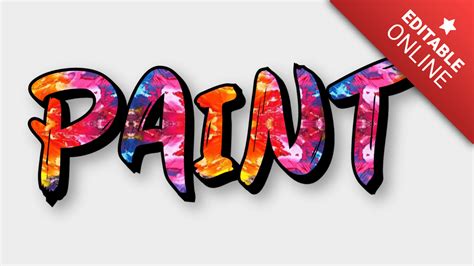
Paint Font Generator. Web discover the perfect font for your next project with our collection of ‘free paint fonts’. Web transform your text into a vibrant masterpiece with our innovative font style text effect generator.
Web brush fonts are imitating styles written with an ink brush, creating thick, bold and elegant text designs. Web paint brush logo creator | free online design tool. Paint fonts mimic the style of using liquid paint or sprayed paint. Use the text generator to. Web transform your text into a vibrant masterpiece with our innovative font style text effect generator. Web discover the perfect font for your next project with our collection of ‘free paint fonts’.
Web paint brush logo creator | free online design tool. Web transform your text into a vibrant masterpiece with our innovative font style text effect generator. Web brush fonts are imitating styles written with an ink brush, creating thick, bold and elegant text designs. Web discover the perfect font for your next project with our collection of ‘free paint fonts’. Paint fonts mimic the style of using liquid paint or sprayed paint. Use the text generator to. Web paint brush logo creator | free online design tool.